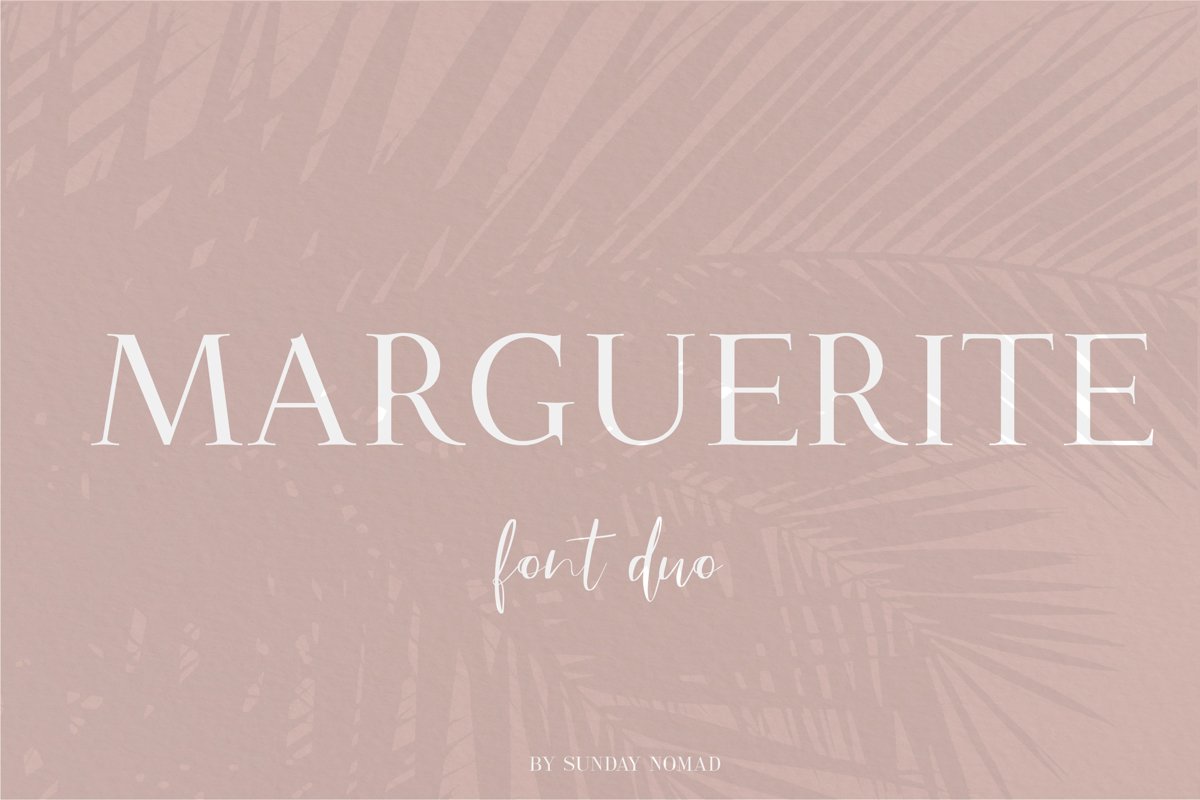
Marguerite
MargueriteSerif
MargueriteScript
Introducing Marguerite!
Brand new Font Duo from Sunday Nomad.
Marguerite is dreamy and romantic, fresh modern with an elegant undertone.
The combination of the two will work well for branding, card design, magazine spreads, and websites.